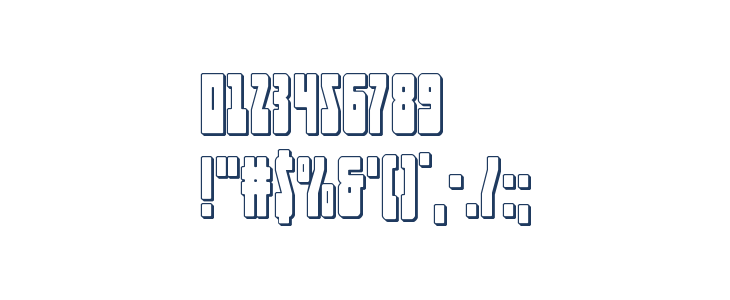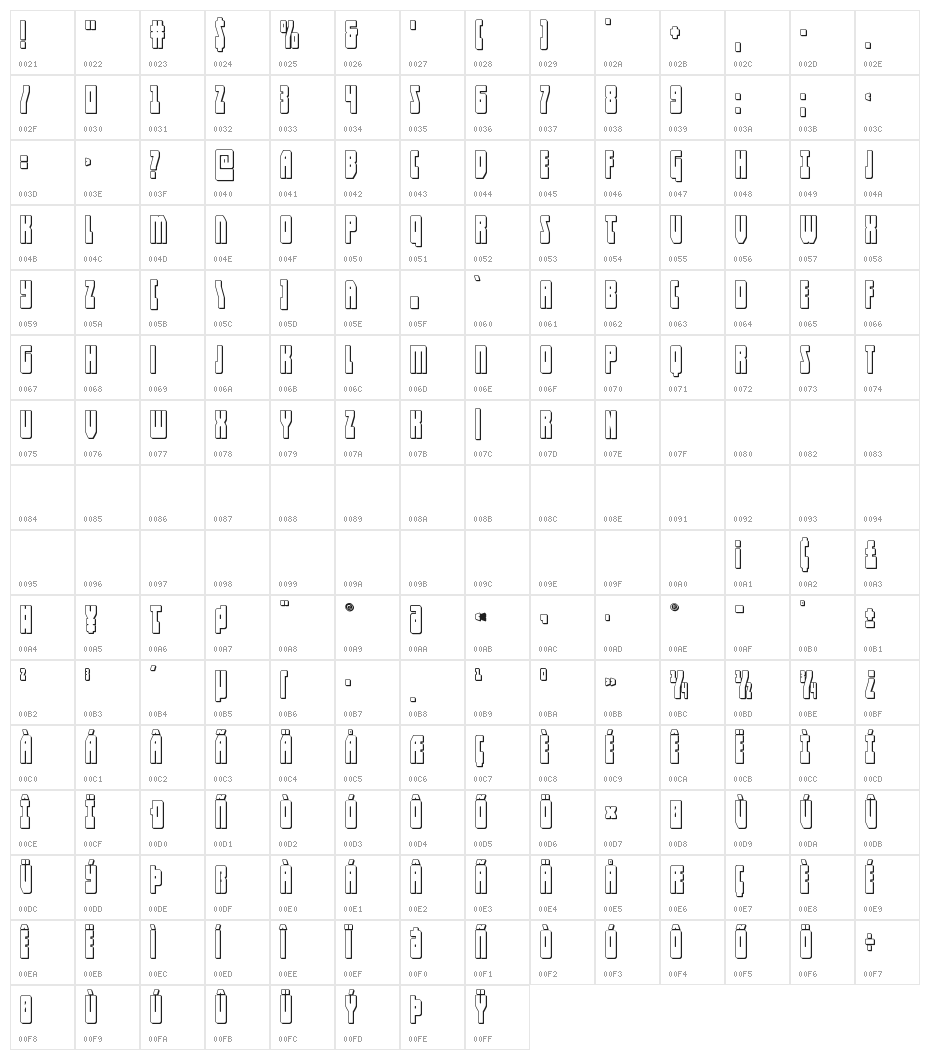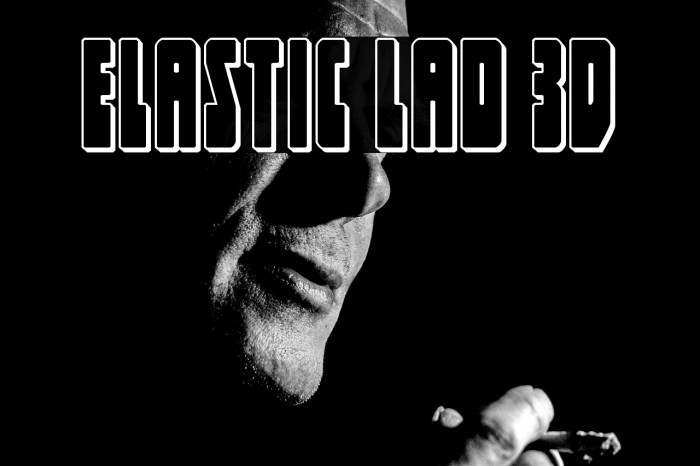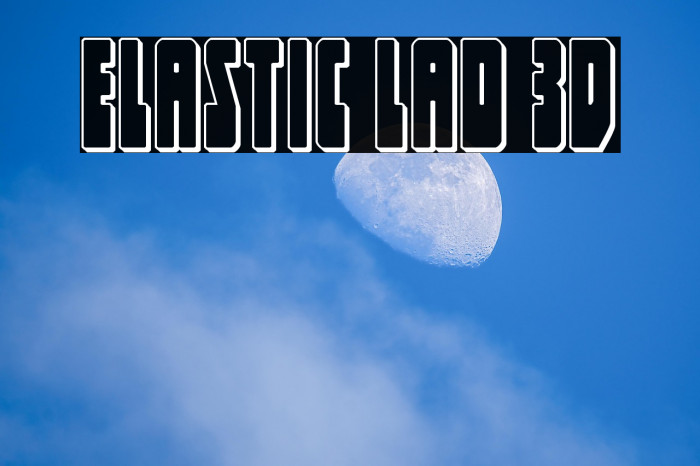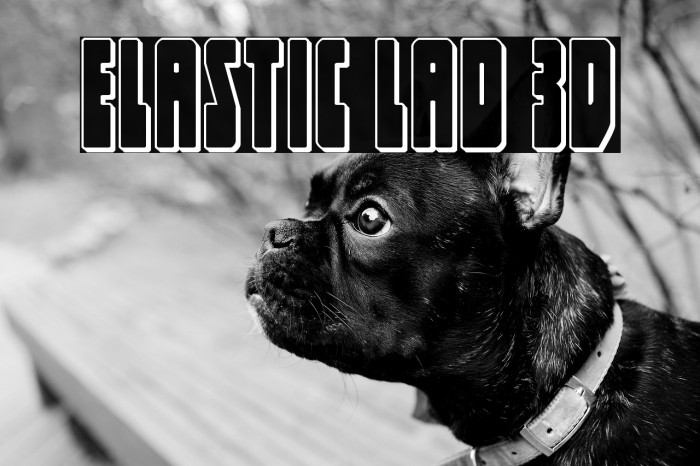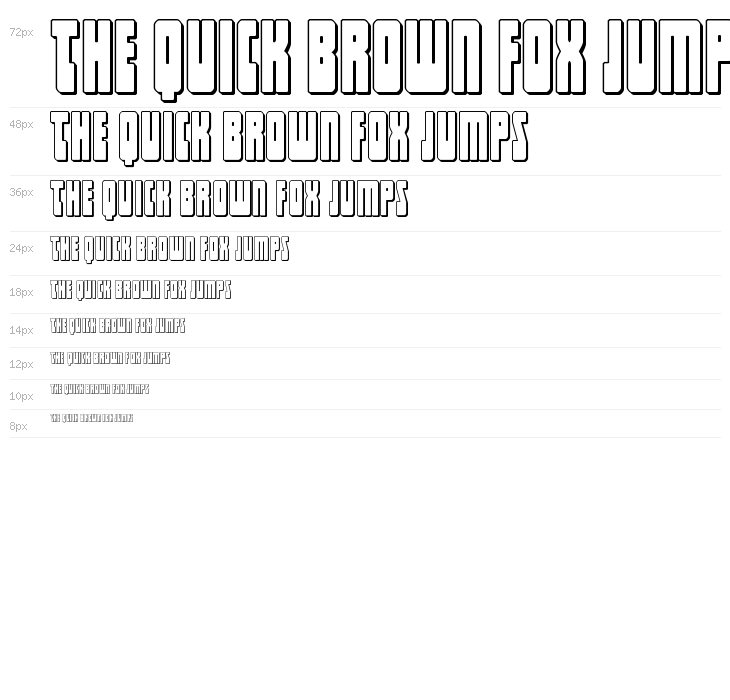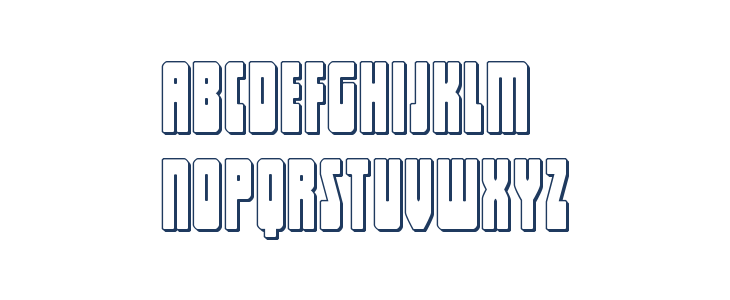
Elastic Lad 3D Font
Elastic Lad 3D Description
This font features a bold, three-dimensional design with a strong, blocky appearance. Each character is outlined, giving it a distinct shadow effect that enhances its 3D look. The uppercase letters are uniform in height and width, creating a cohesive and structured appearance. The numbers and special characters follow the same design principles, ensuring consistency across all glyphs. The font's style is eye-catching and modern, making it suitable for attention-grabbing headlines or titles. Its geometric shapes and bold lines convey a sense of strength and stability.
| Proposed Projects | Ideal for posters, logos, video game titles, or any project requiring a strong visual impact. |